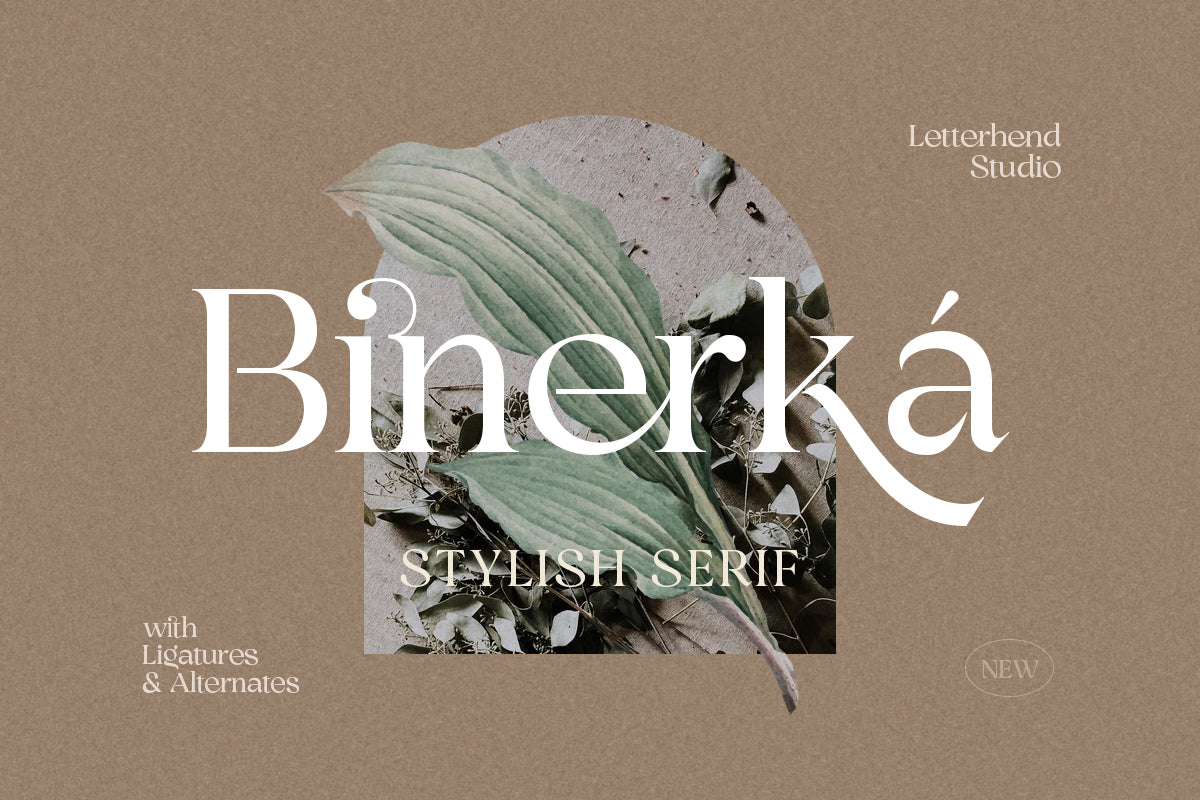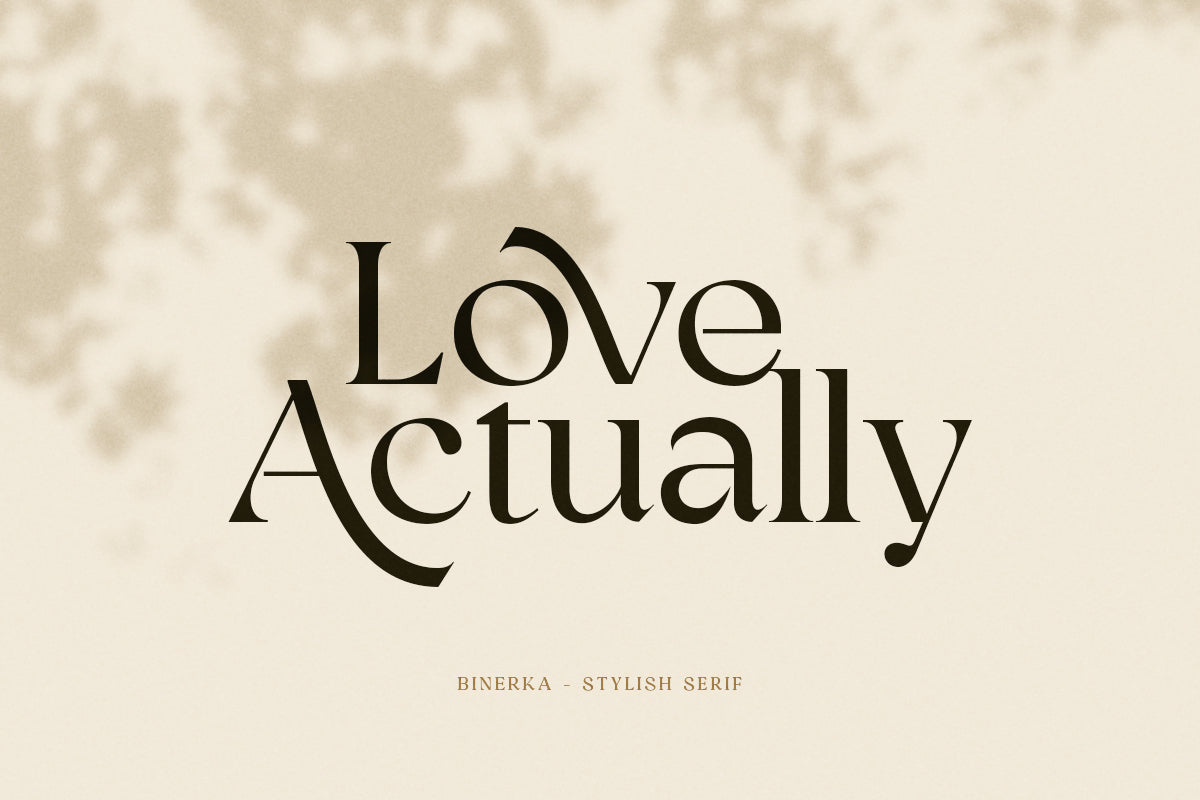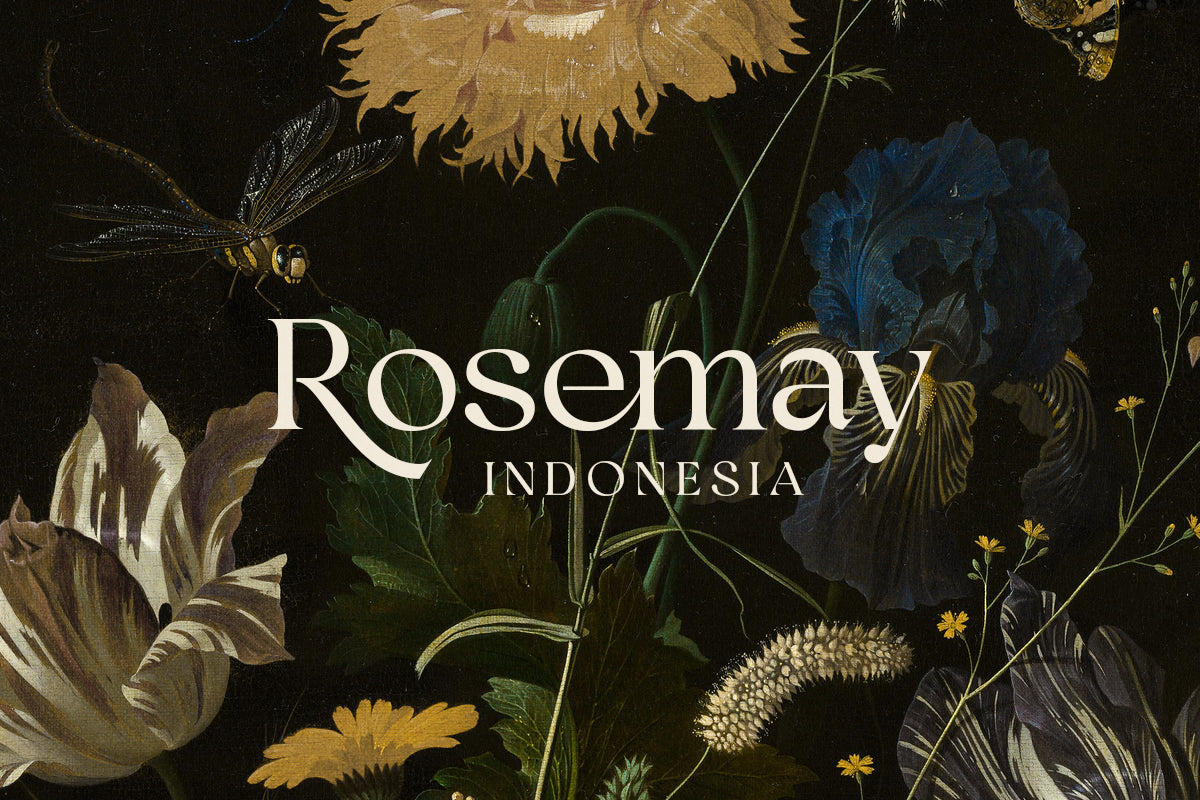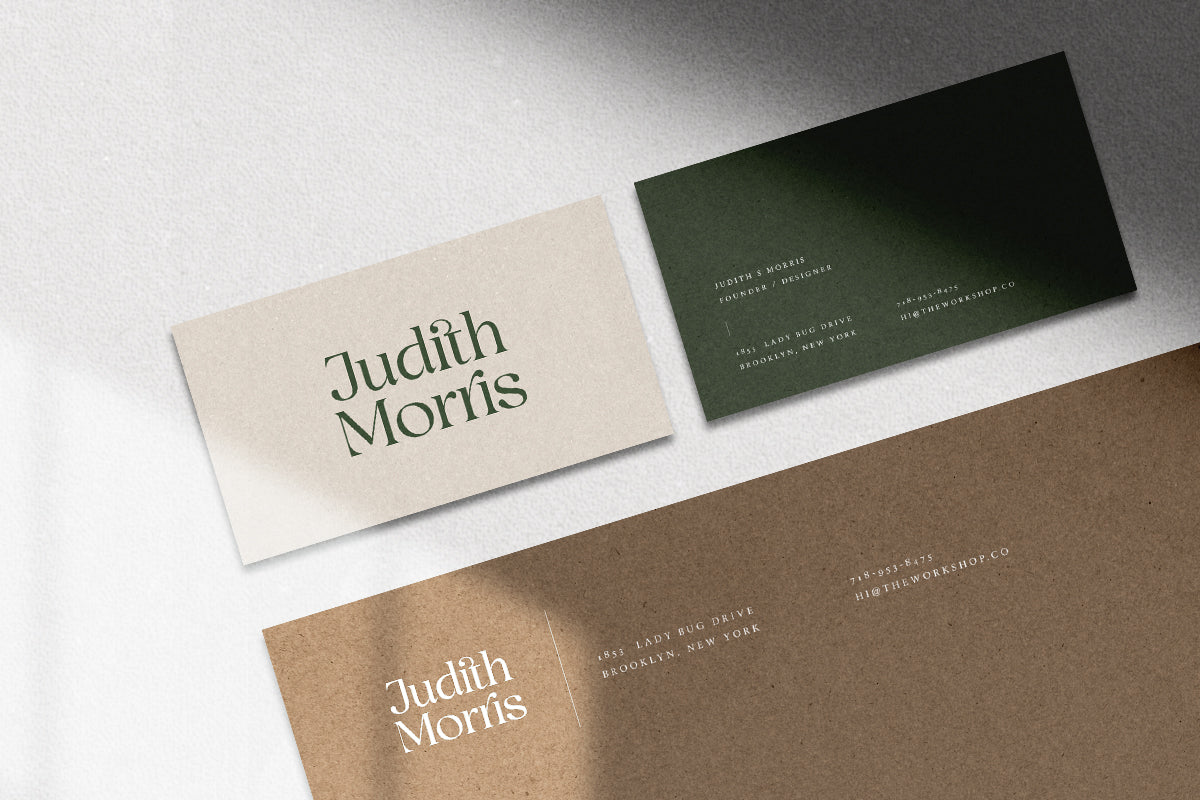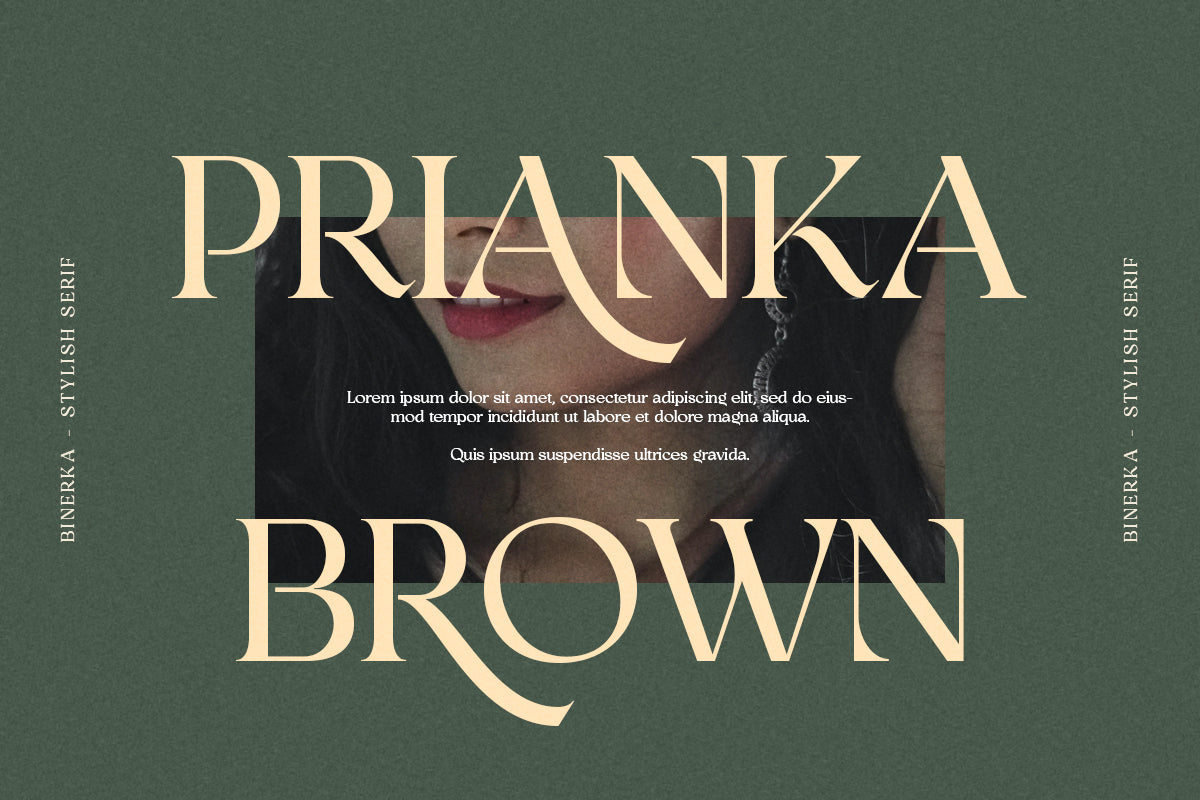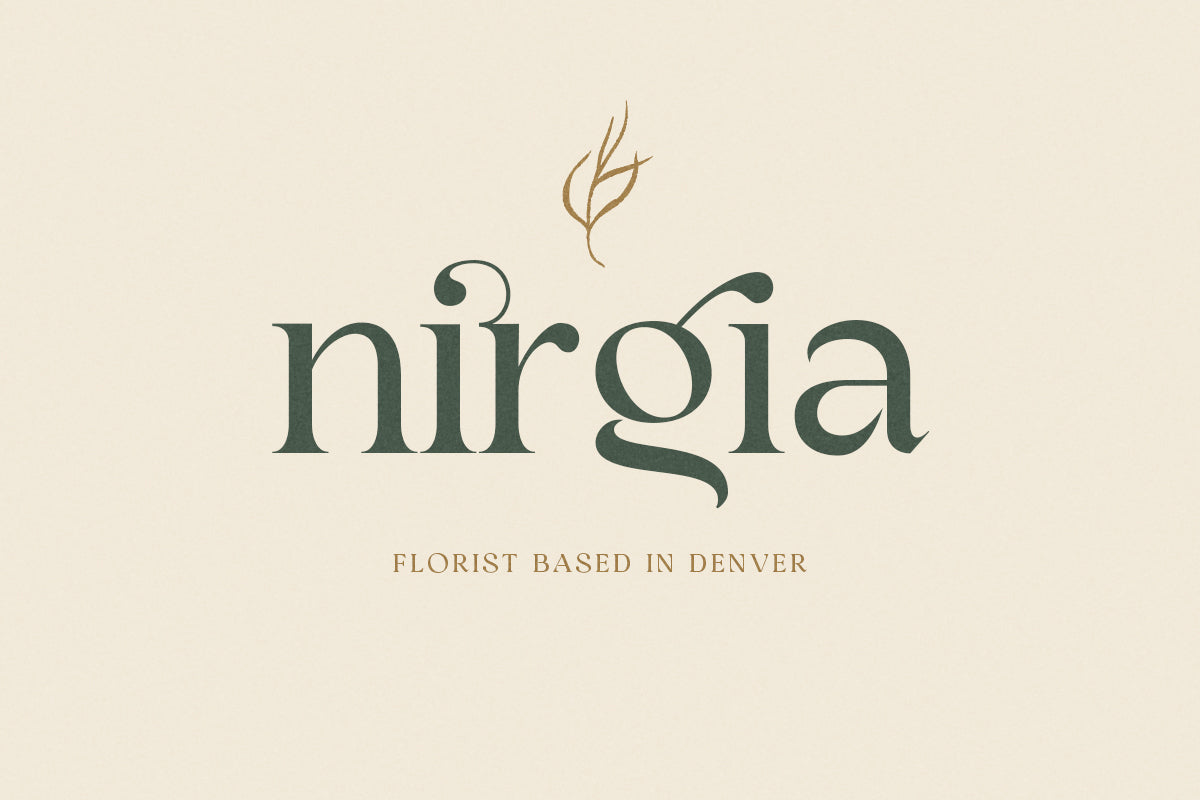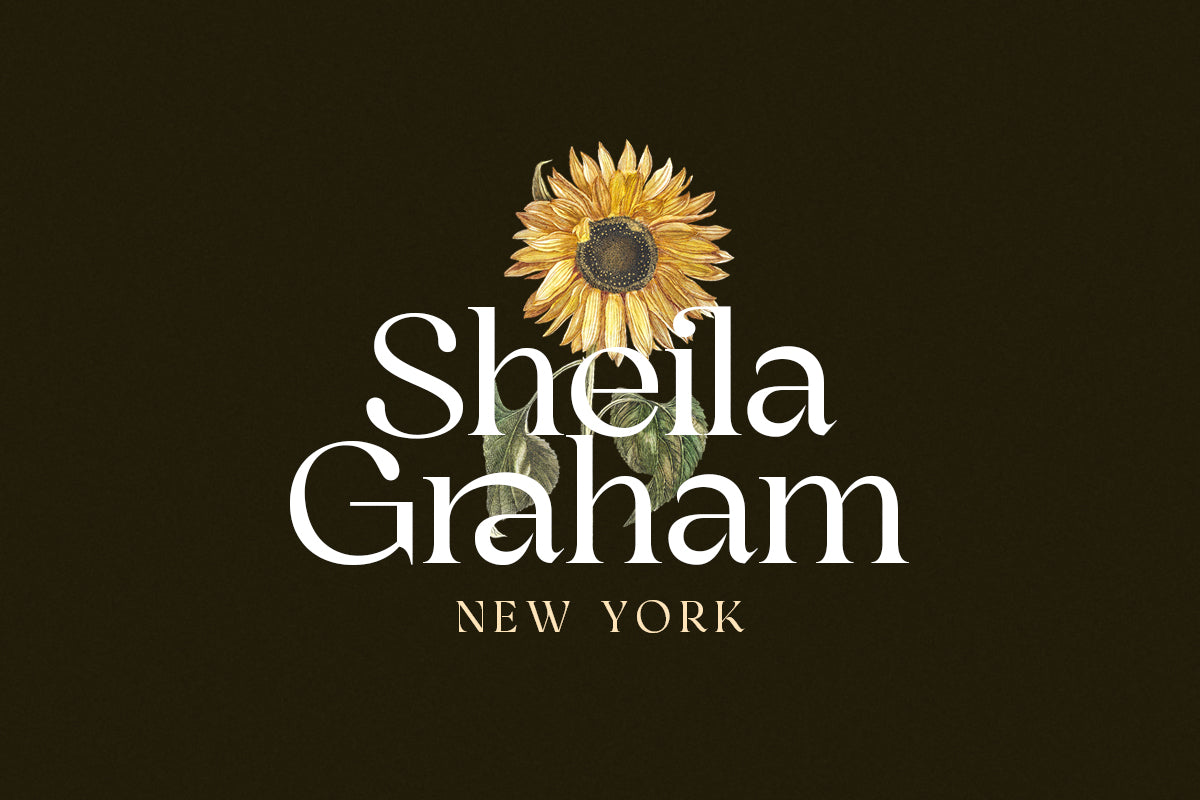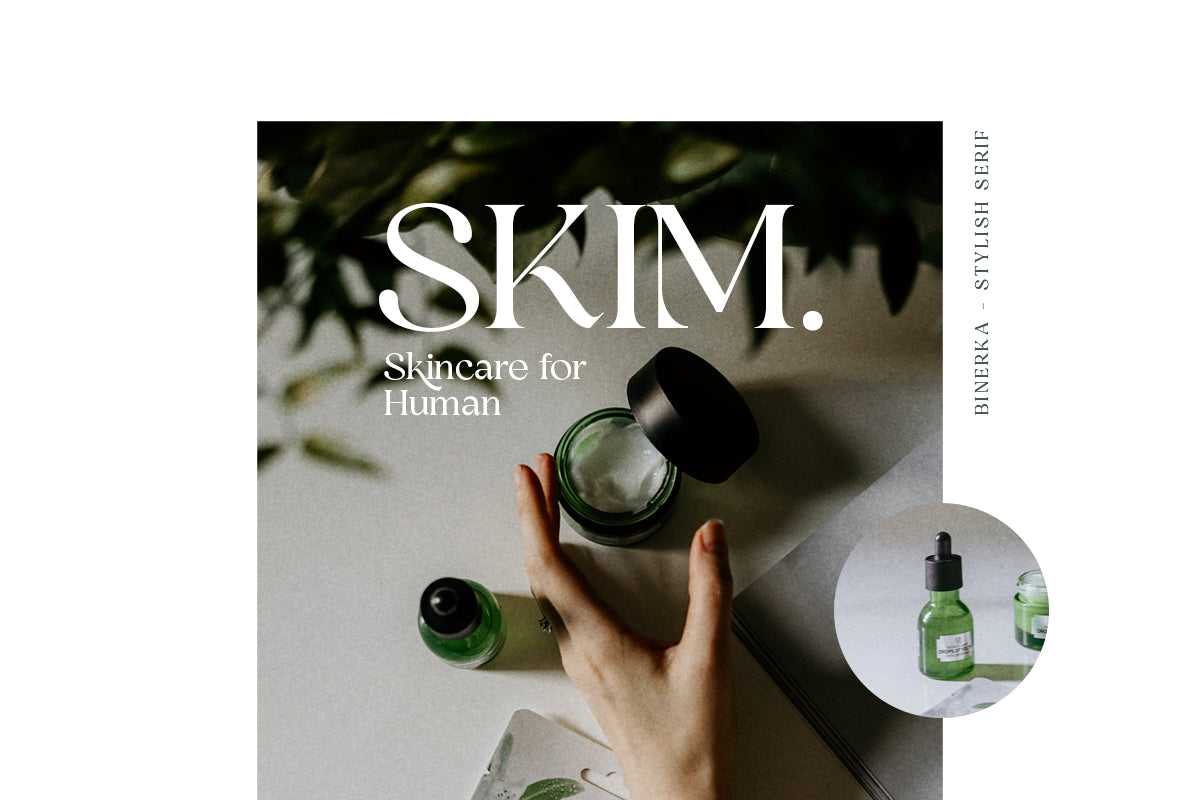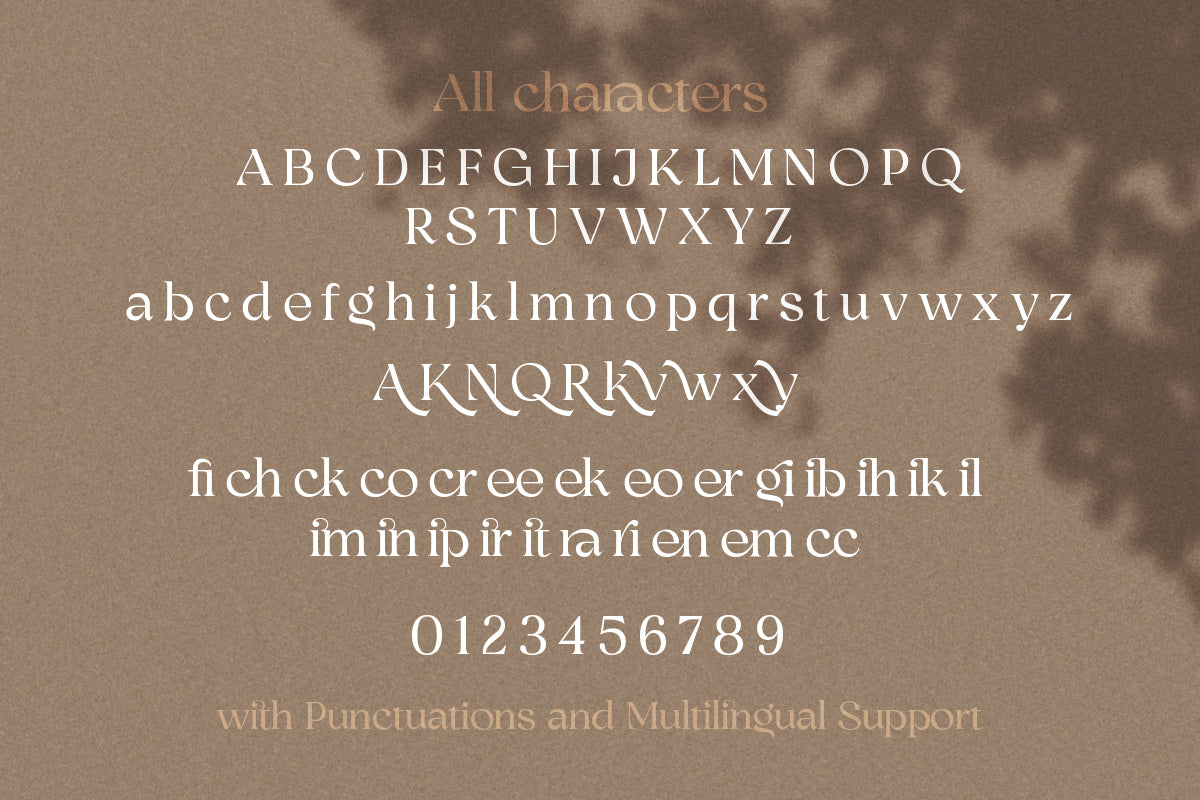
Binerka - Stylish Serif Font
Binerka is a stylish modern serif font. This typeface has can be used for modern theme or vintage looks with ligatures & alternates. Very suitable for logo, headline, tittle, and the other various formal forms such as invitations, labels, logos, magazines, books, greeting / wedding cards, packaging, fashion, make up, stationery, novels, labels or any type of advertising purpose.
Features :
uppercase and lowercase
numbers and punctuation
multilingual
ligatures
alternates